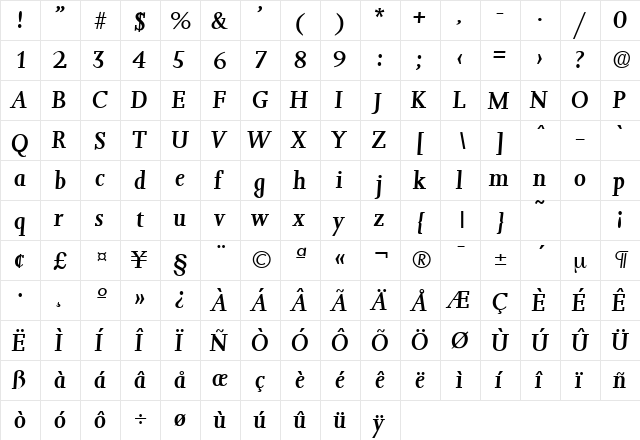
Jessica-Serial-Medium RegularItalic
Design Context for Jessica-Serial-Medium Typeface
Jessica-Serial-Medium is a composed and adaptable typeface that performs quietly and consistently across a wide range of design contexts. The dynamic lean of this cut emphasises speed and emphasis in any layout.
Pro Tip: Use Jessica-Serial-Medium for emphasis, pull quotes, and subheadings where its slanted energy can add rhythm to the layout.